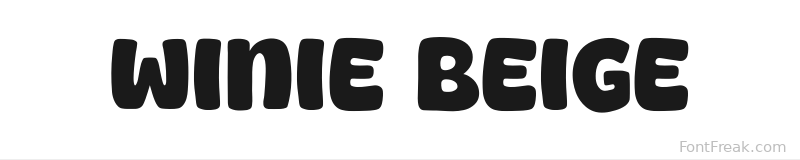
Winie Beige
The Winie Beige font by Syaf Rizal is a charming display typeface that stands out for its unique character and playful design. This font falls into the decorative category, making it an excellent choice for projects that require a touch of whimsy and creativity. Its bold stroke weight and rounded letterforms give it a friendly, approachable feel, while the slightly irregular spacing adds an element of handcrafted charm. The font's visual characteristics include smooth curves and a lack of sharp edges, contributing to its overall inviting appearance.
Winie Beige is particularly suitable for a variety of use cases. It shines in wedding invitations where its playful nature can evoke joy and celebration. Additionally, this font can be effectively utilized in branding for cafes and restaurants, giving menus a warm and welcoming vibe. It is also ideal for children's books and educational materials, providing an engaging and easy-to-read typeface for young audiences. Graphic designers and content creators will find it perfect for social media graphics, where eye-catching typography can make a significant impact.
Targeted towards graphic designers, small business owners, and content creators, Winie Beige offers a unique solution for anyone looking to add a touch of personality to their projects. Its freeware license makes it accessible to a wide audience, allowing creatives to experiment without financial constraints.
In conclusion, Winie Beige stands out not just for its aesthetic appeal but also for its versatility across various applications. With its engaging design and friendly demeanor, it invites users to explore their creativity. Discover the potential of this delightful font with a Winie Beige font free download and elevate your next project to new heights.